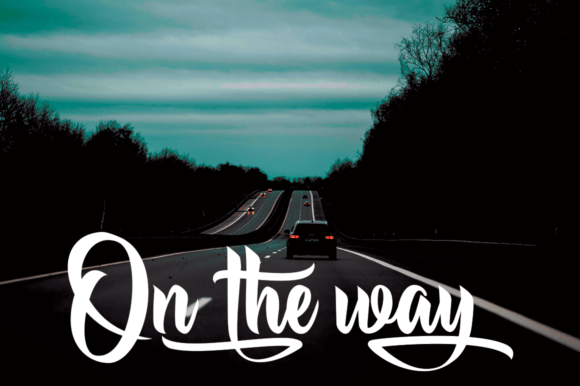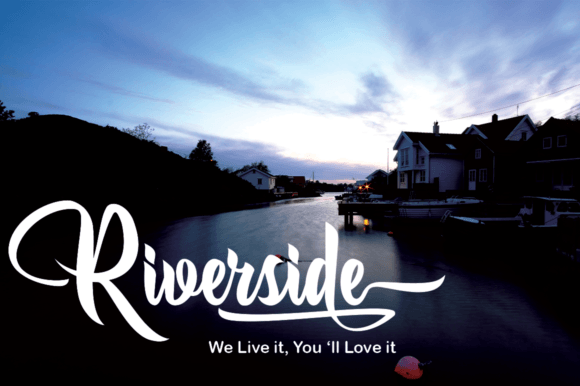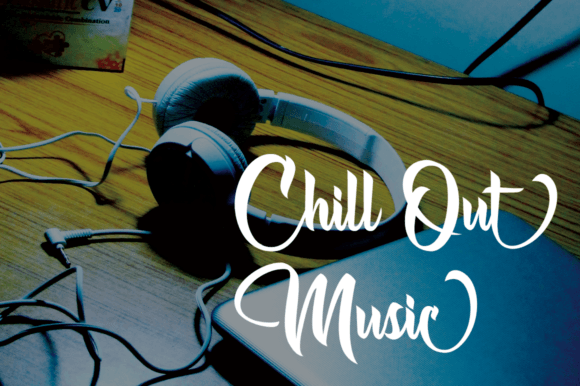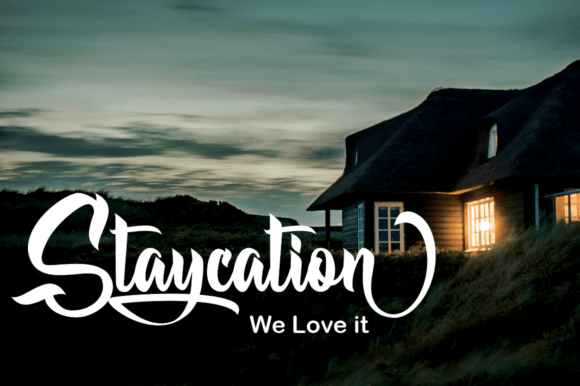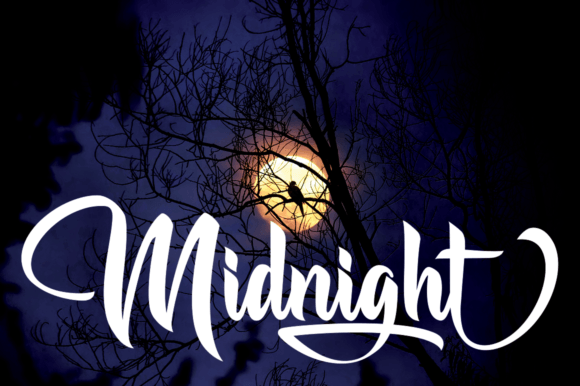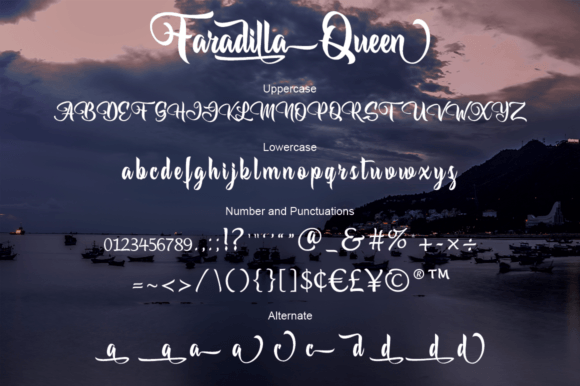
“Faradilla Queen” is a captivating handwritten font that enchants with its unique charm. This versatile script font is a powerful addition to your design toolkit, suitable for a wide range of applications, from greeting cards to headlines, and it promises to infuse a romantic touch into your next project.
The allure of “Faradilla Queen” lies in its ability to convey a sense of enchantment and romance. Each character is meticulously crafted, and the font as a whole exudes a whimsical and romantic vibe. Whether you’re designing a greeting card for a loved one or creating an eye-catching headline, “Faradilla Queen” adds an element of beauty and allure to your work.
For various design applications, including branding, product packaging, social media graphics, and more, “Faradilla Queen” brings a touch of romance and charm to your content. It has a versatile quality that can enhance the visual appeal of your projects, regardless of the context or theme.
Moreover, the fact that “Faradilla Queen” is PUA encoded means that you can easily access its full range of glyphs and swashes, allowing you to personalize and customize your designs effortlessly. This feature provides you with the creative freedom to make your projects truly unique.
In summary, “Faradilla Queen” is more than just a font; it’s a design asset that brings an enchanting and romantic feel to your creative work. Its handwritten style and versatility make it suitable for a variety of applications, and its ability to convey beauty and allure sets it apart. With “Faradilla Queen” as part of your font collection, your design projects will radiate a sense of whimsy and romance that captivates and leaves a lasting impression.